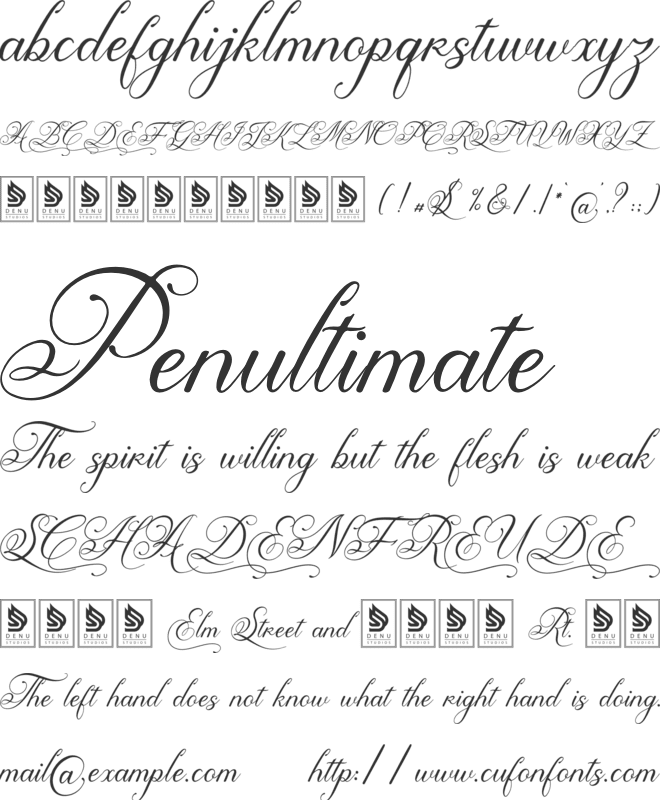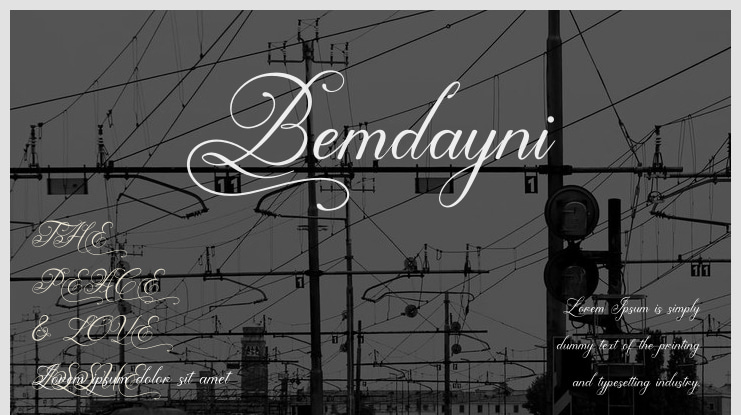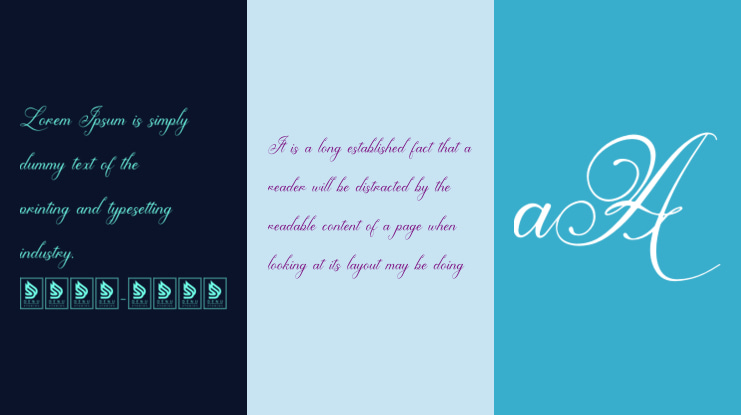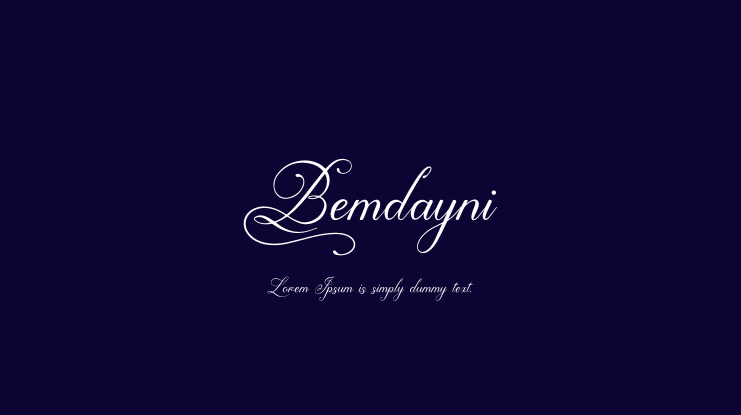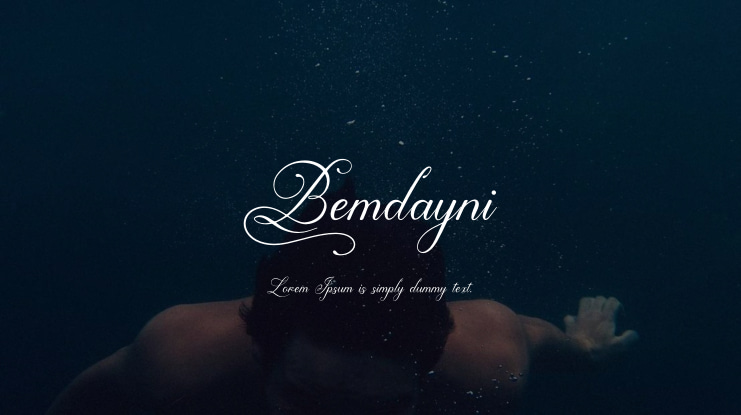
Bemdayni Font
Bemdayni | Modern Calligraphy Font is suitable for various projects, including logos, branding, homeware designs, product packaging, mugs, quotes, posters, shopping bags, t-shirts, book covers, name cards, invitation cards, greeting cards, labels, photography, watermarks, special events, and all other lovely projects requiring a modern calligraphy font.